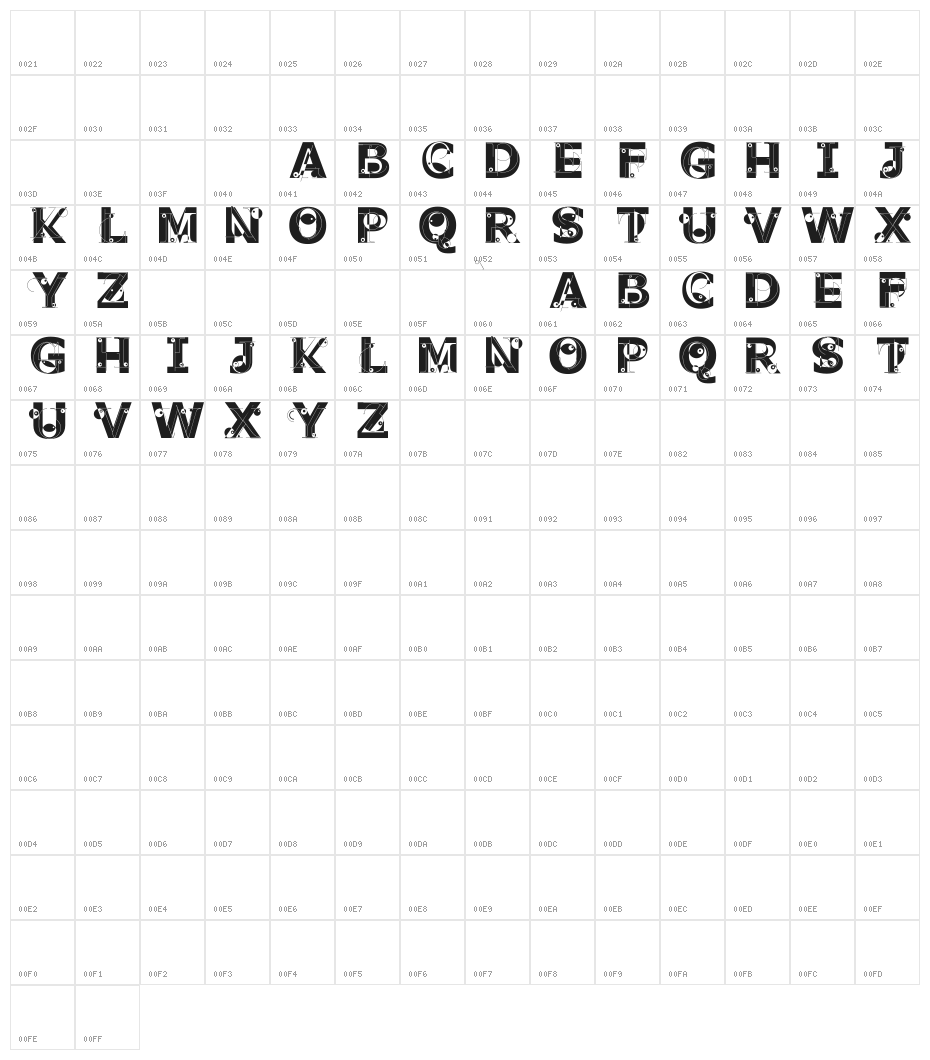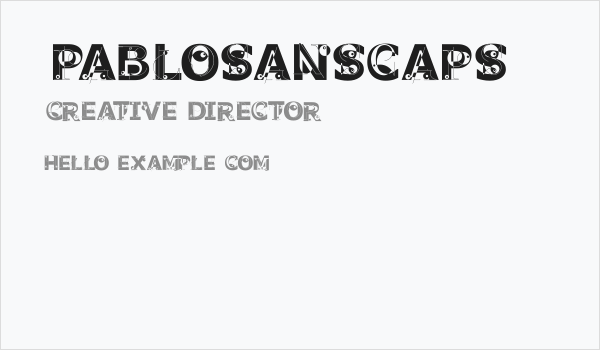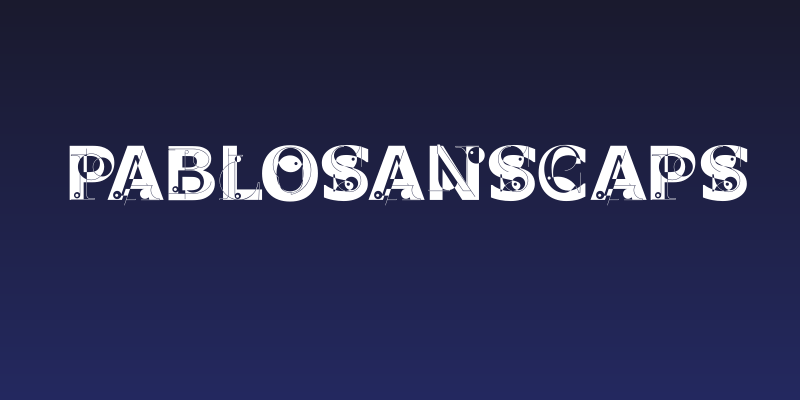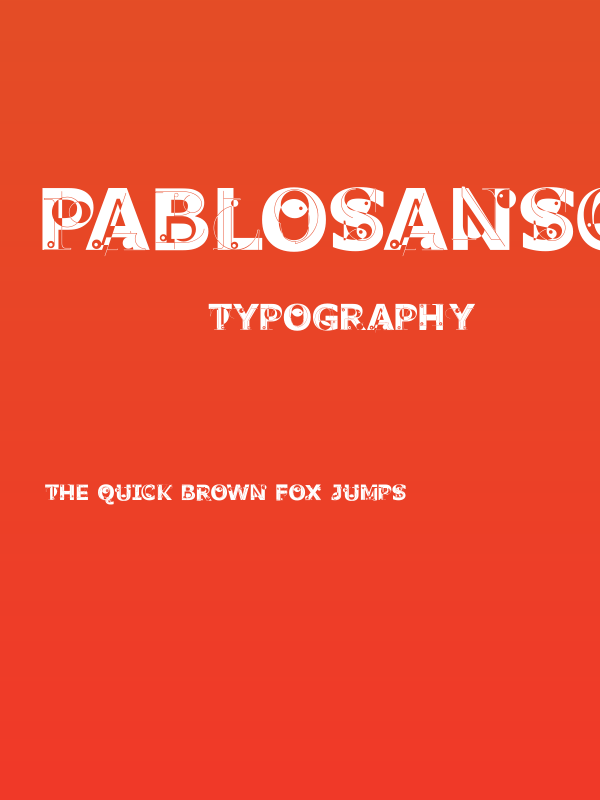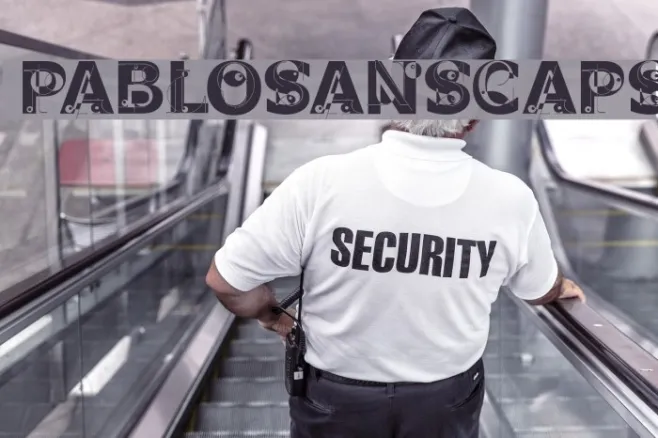
PabloSansCaps Font
PabloSansCaps Description
This font features a bold and striking design with a mechanical and industrial aesthetic. The characters are constructed with a combination of solid black fills and intricate white outlines, creating a sense of depth and complexity. The geometric shapes and angular lines give it a modern and edgy appearance, while the consistent use of circular elements adds a unique touch. The font is highly decorative, making it ideal for attention-grabbing headlines and creative projects that require a distinctive and unconventional look.
| Overall Style | Modern, Industrial |
| Proposed Projects | Ideal for use in posters, logos, branding, and any project requiring a bold, industrial aesthetic. |